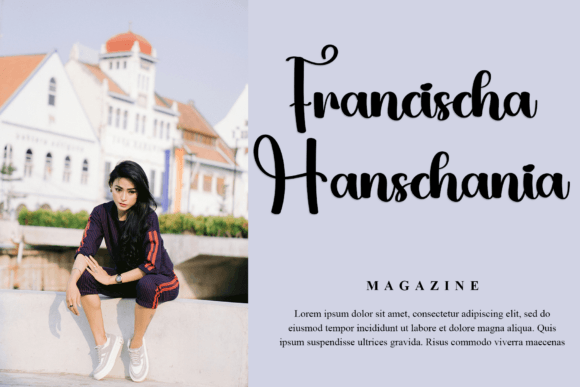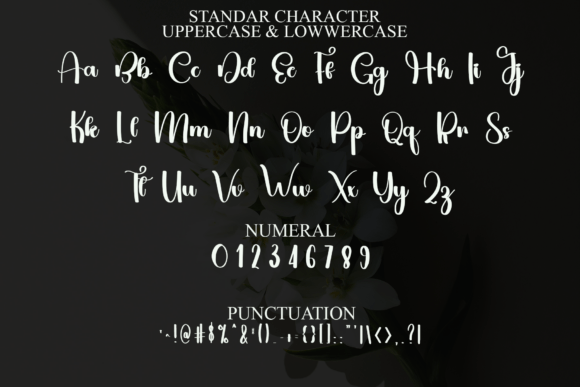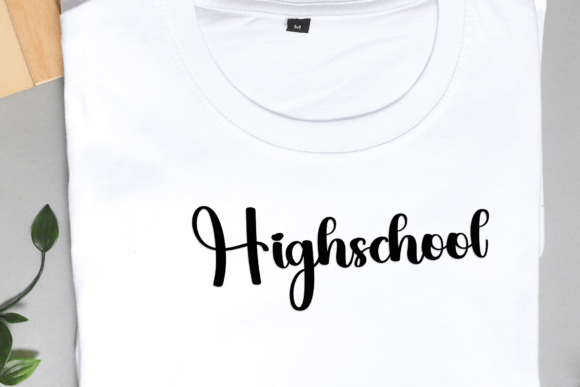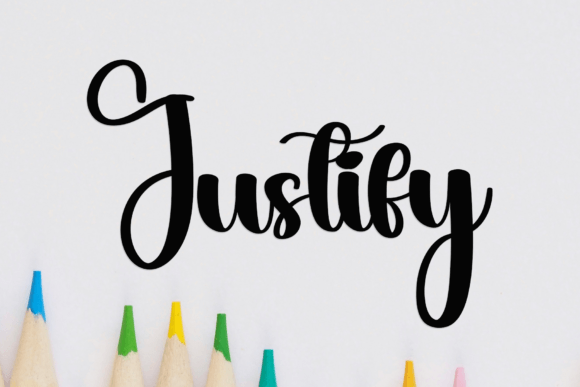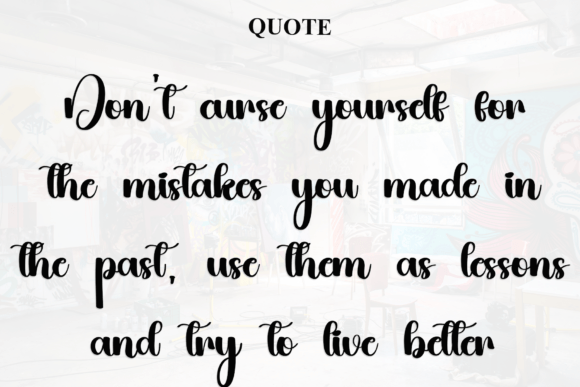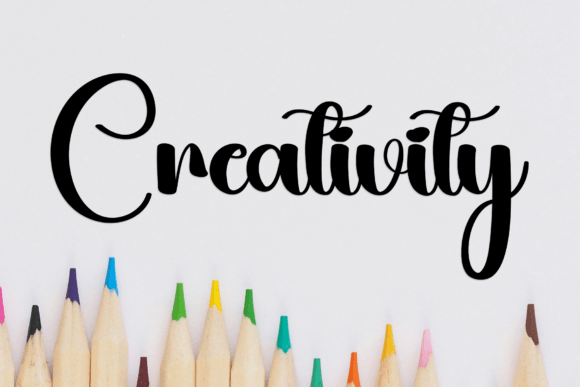
Introducing Creative Varsity Font: Elevate Your Designs with Style and Sophistication
Are you a designer or crafter looking for a font that can add a touch of elegance and sophistication to your work? Look no further than Creative Varsity Font. This stunning font is designed to provide a natural feel to your designs, making it perfect for a wide range of projects. In this article, we’ll explore the features and benefits of Creative Varsity Font and show you how it can elevate your designs to the next level.
The Beauty of Creative Varsity Font
Creative Varsity Font is a very beautiful font that boasts smooth touches and beautiful strokes. Its natural flow and elegant design make it perfect for creating visually appealing designs that capture the attention of your audience. Whether you’re working on a banner, YouTube thumbnail, logo design, or wedding invitation card, this font is sure to impress.
One of the best things about Creative Varsity Font is its versatility. It’s suitable for a wide range of design projects, including:
- Banners: Create eye-catching banners that grab attention with Creative Varsity Font.
- YouTube Thumbnails: Make your YouTube thumbnails stand out from the crowd with this beautiful font.
- Logo Designs: Create professional and elegant logos that reflect your brand’s personality.
- Wedding Invitation Cards: Add a touch of sophistication and romance to your wedding invitation cards.
- Clothing Mockups: Design stunning clothing mockups that showcase your fashion brand’s style.
- T-Shirts: Create custom t-shirts with unique and eye-catching designs.
Why Choose Creative Varsity Font?
So, why should you choose Creative Varsity Font for your design projects? Here are just a few reasons:
- Elegant Design: Creative Varsity Font has an elegant design that adds a touch of sophistication to your work.
- Natural Feel: The smooth touches and beautiful strokes of this font give it a natural feel that resonates with your audience.
- Versatility: As mentioned earlier, Creative Varsity Font is suitable for a wide range of design projects.
- Easy to Read: This font is easy to read, making it perfect for designs that require a clear and concise message.
Tips for Using Creative Varsity Font
Here are some tips for using Creative Varsity Font in your design projects:
- Pair it with Other Fonts: Experiment with pairing Creative Varsity Font with other fonts to create a unique and visually appealing design.
- Use it for Headings: Use Creative Varsity Font for headings and titles to add a touch of elegance and sophistication.
- Experiment with Colors: Try out different colors and color combinations to see what works best with Creative Varsity Font.
In conclusion, Creative Varsity Font is a beautiful and versatile font that’s perfect for designers and crafters looking to elevate their designs. Its elegant design, natural feel, and versatility make it suitable for a wide range of projects. Whether you’re working on a banner, YouTube thumbnail, logo design, or wedding invitation card, Creative Varsity Font is sure to impress. So, why not give it a try and see how it can take your designs to the next level?